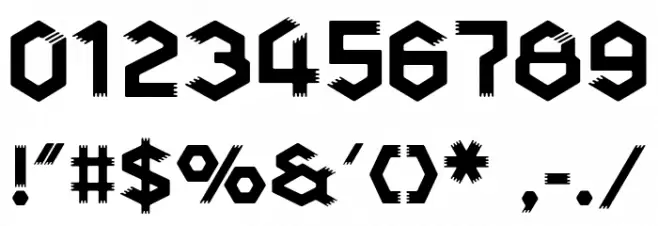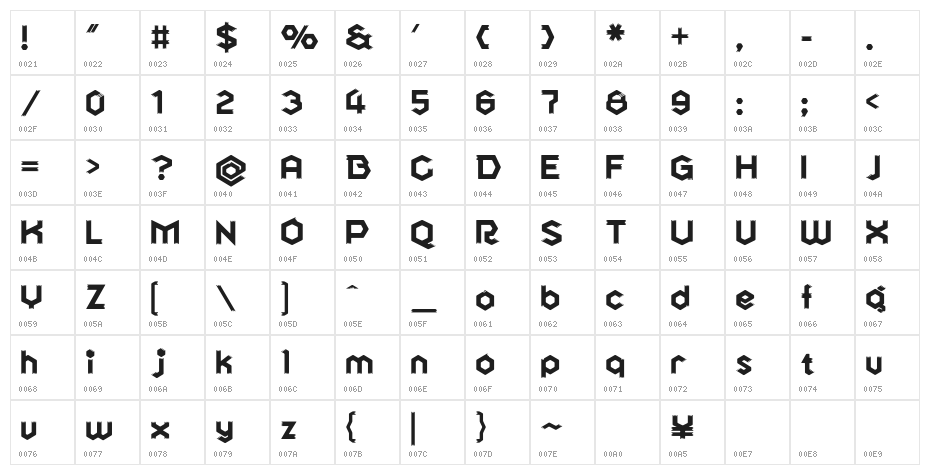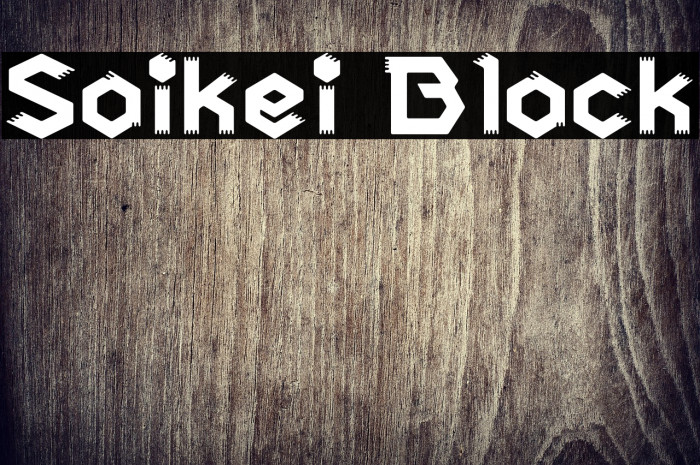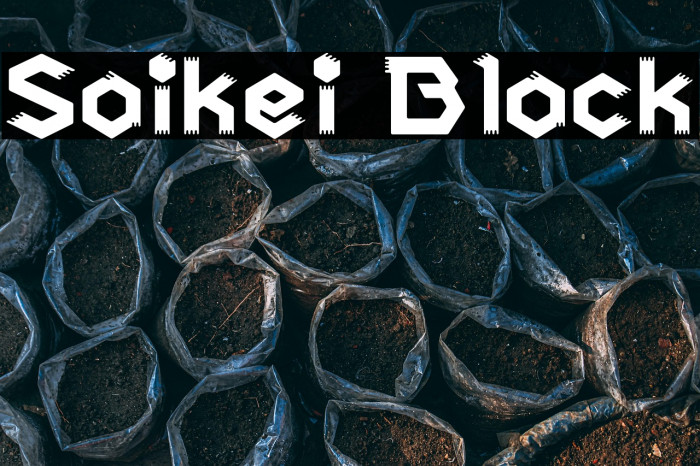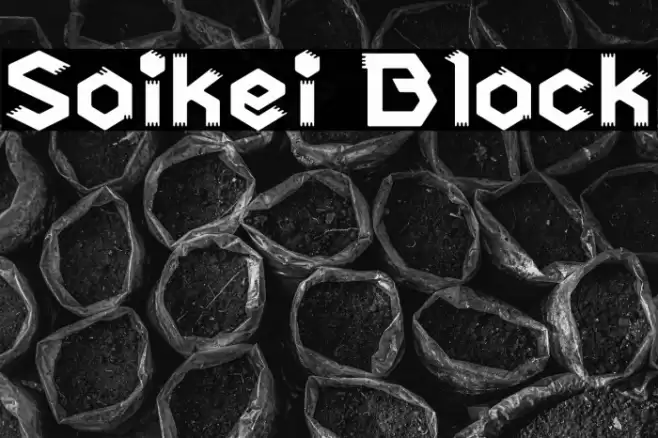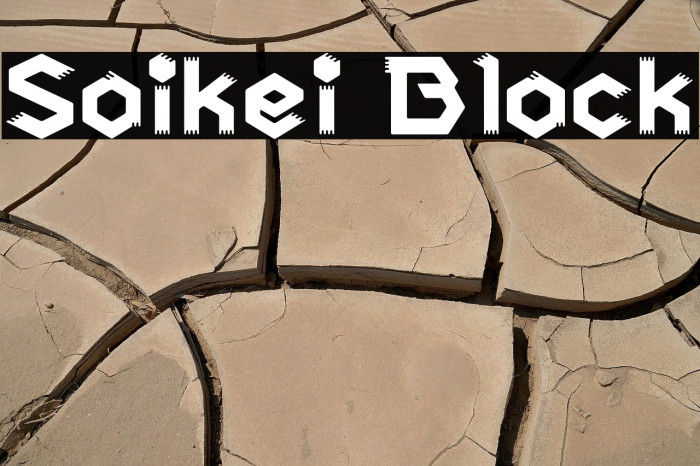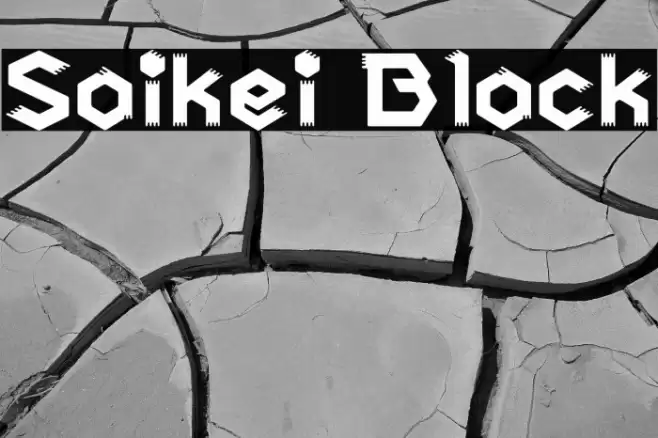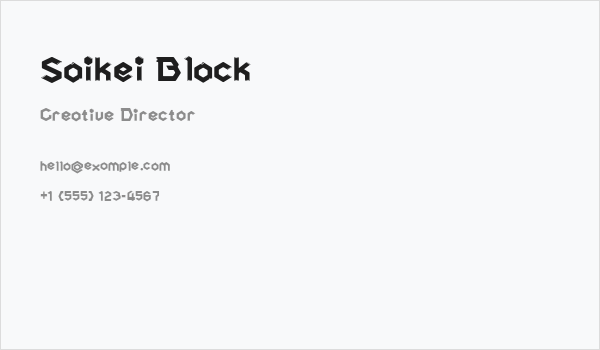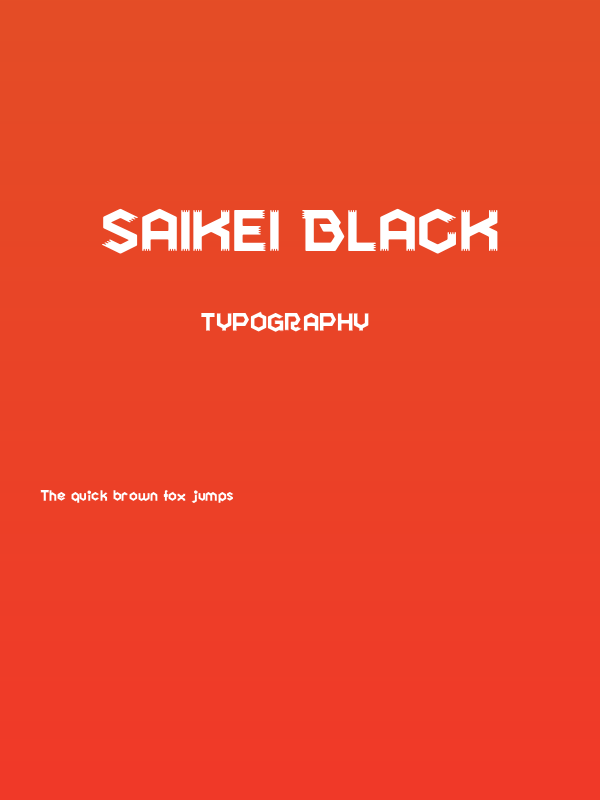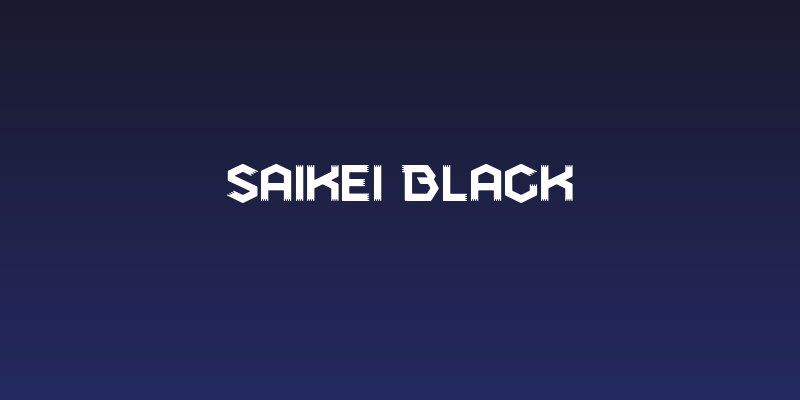
Saikei Black Font
Saikei Black Description
This font features a bold and striking design with a geometric and angular aesthetic. The characters are constructed with sharp edges and a unique pattern that resembles a digital glitch or pixelated effect. The uppercase and lowercase letters maintain a consistent style, with the lowercase being slightly more compact. Numbers and special characters follow the same design principles, ensuring uniformity across all glyphs. The font's distinct appearance makes it ideal for projects that require a modern and edgy look, such as digital art, gaming interfaces, or futuristic branding.
| Proposed Projects | Ideal for digital art, gaming interfaces, futuristic branding, and tech-related projects. |